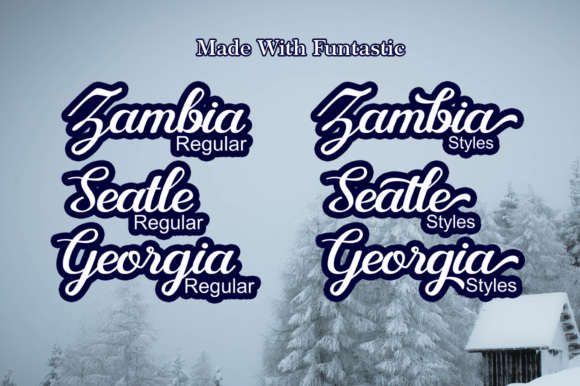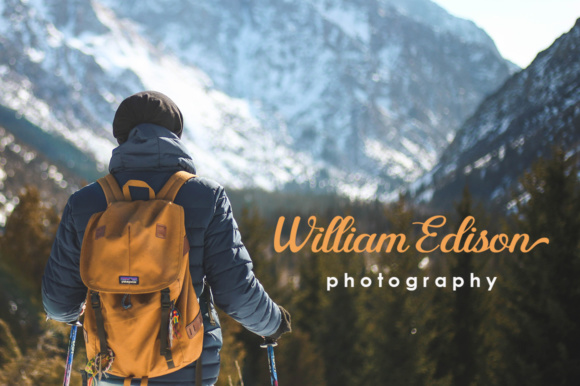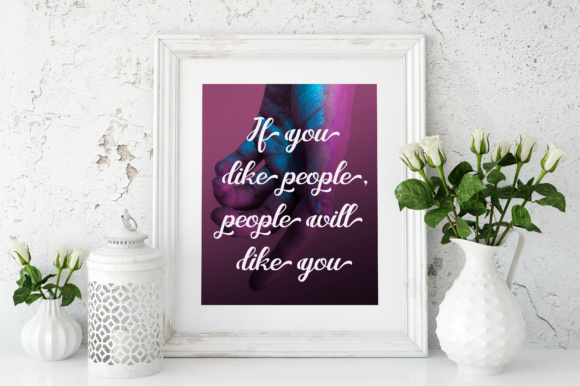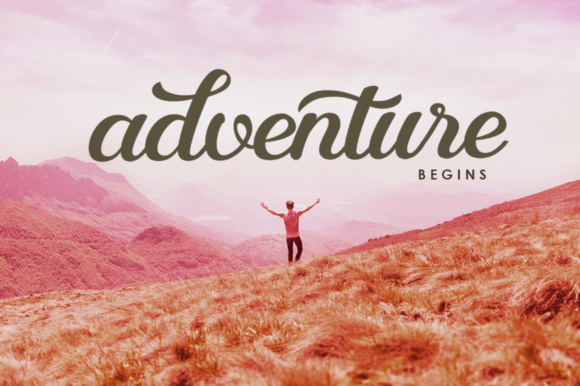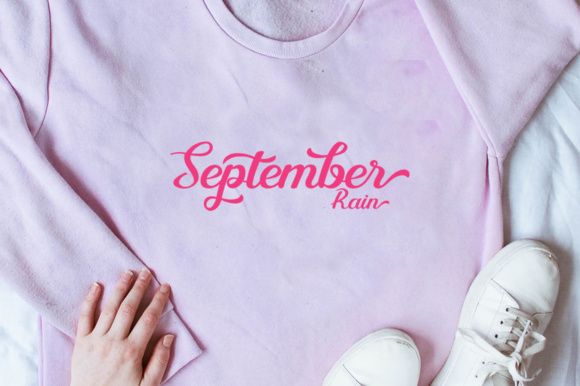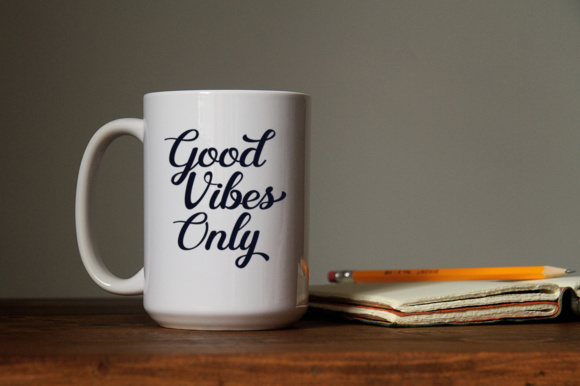
Unleash the Fun with Funtastic Script Font
Do you remember that moment when you stumbled upon the perfect font for your design project, and everything just clicked? It’s like finding the missing piece to a puzzle. For designers, this feeling is all too familiar, and it’s what drives us to keep pushing the boundaries of creativity. One such game-changer is the Funtastic Script Font, a highly legible Script typeface that’s sure to bring a touch of classic charm to your designs.
With its bold, vintage vibe, Funtastic Script Font is perfect for a wide range of applications, from posters and t-shirts to signage, logos, and news headlines. Its versatility and readability make it a valuable asset for designers, allowing them to create stunning visuals that capture attention and convey messages effectively.
Funtastic Script Font Key Features
- Unique Characteristics: Hand-drawn, cursive script font with a playful and whimsical feel, ideal for creative projects and branding
- Kerning and Ligatures: Includes advanced kerning and ligature pairs for professional-grade typography
Funtastic Script Font Review
I recently had the chance to work with the Funtastic Script Font, and I must say it’s a mixed bag. ✨ Some things work well, while others leave me feeling uncertain.
- ✨ Beautiful, playful characters: The Funtastic Script Font is perfect for adding a touch of whimsy to your designs. The letters are intricately designed, with flourishes and curves that make them a joy to look at.
- ✨ Wide range of languages supported: I was pleasantly surprised to see that the font supports a wide range of languages, making it a great choice for multilingual projects.
- ✨ Great for titles and headings: The font is perfect for titles, headings, and other text elements that need to stand out.
- ⚠️ Limited legibility at smaller sizes: While the font looks great at larger sizes, it can become difficult to read at smaller sizes. This might be a concern for projects that require a lot of small text.
- ⚠️ Not ideal for body text: While the font is great for titles and headings, it’s not the best choice for body text. The characters can become overwhelming and difficult to read when used extensively.
The Funtastic Script Font is a unique and eye-catching choice for designers looking to add some personality to their projects. While it has some limitations, it’s a great option for titles, headings, and other text elements that need to stand out. Just be sure to use it wisely, and consider the size and legibility of your text.
The Funtastic Script font is perfect for:
- Adding a playful touch to your branding materials.
- Creating eye-catching social media graphics.
- Designing invitations and event materials.
To get the most out of the Funtastic Script font, try:
- Combining it with other playful fonts for a unique look.
- Experimenting with different font sizes and colors.
- Using it for headings and titles to add visual interest.
Alternatives to Funtastic Script Font
Great Vibes is a beautiful, handwritten script font perfect for creating a fun and playful atmosphere. It’s ideal for titles, headings, and short paragraphs where a touch of whimsy is needed. Great Vibes is more elegant and refined compared to Funtastic Script Font, which is bolder and more energetic.
Alex Brush is a calligraphic script font that exudes sophistication and elegance. It’s suitable for use in high-end designs, such as luxury branding, invitations, and special occasions. Compared to Funtastic Script Font, Alex Brush is more formal and less playful, making it a great choice for projects where a touch of sophistication is required.
Carolyna Pro is a modern script font that combines elegance and playfulness. It’s perfect for use in various design projects, from fashion and beauty to food and travel. Compared to Funtastic Script Font, Carolyna Pro is more versatile and has a wider range of styles, making it a great choice for designers who want a font that can adapt to different projects.